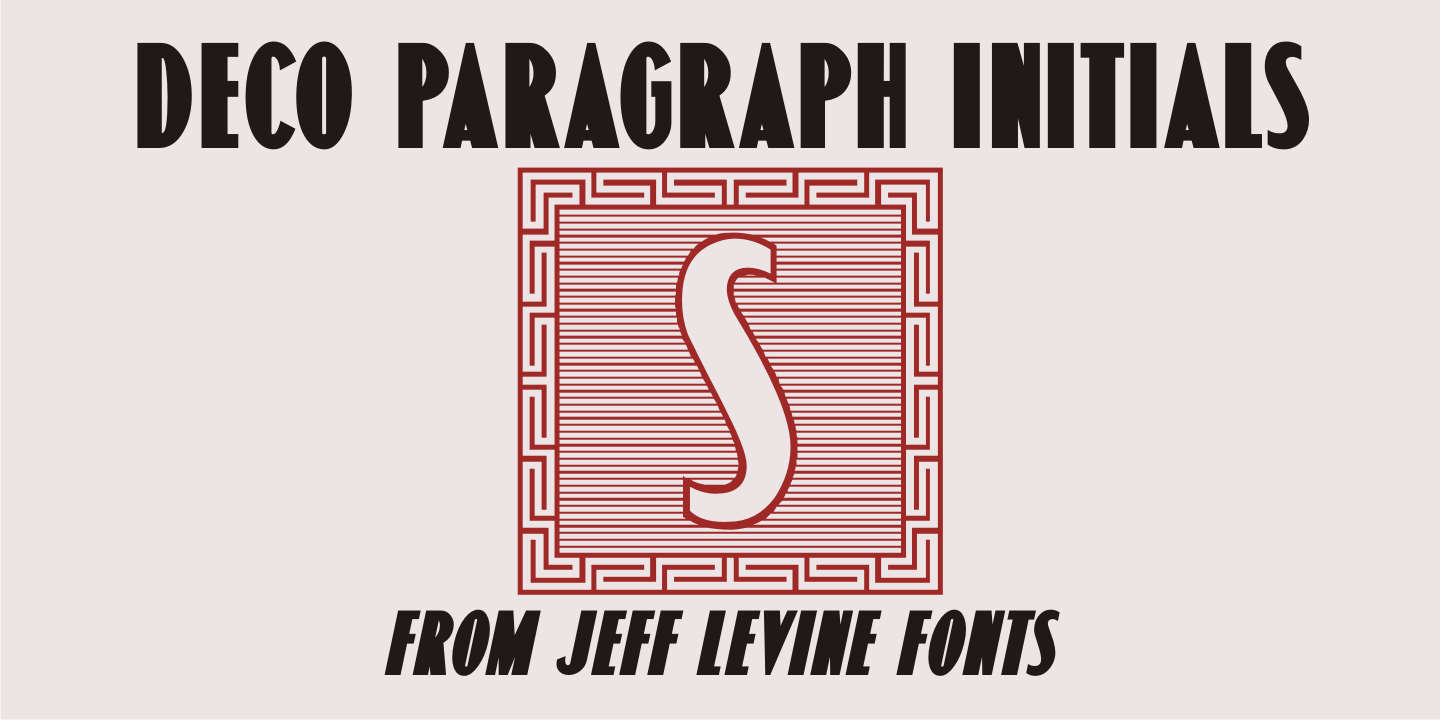
Deco Paragraph Initials
Deco Paragraph Initials JNL contains an alphabet based on the typeface Monthly Adventures JNL and is set within an attractively framed border. Suitable for personalized stationery, used as paragraph drop caps or as decorative monograms, these Art Deco-flavored letters add the charm and clean look of the 'Streamline Era”.